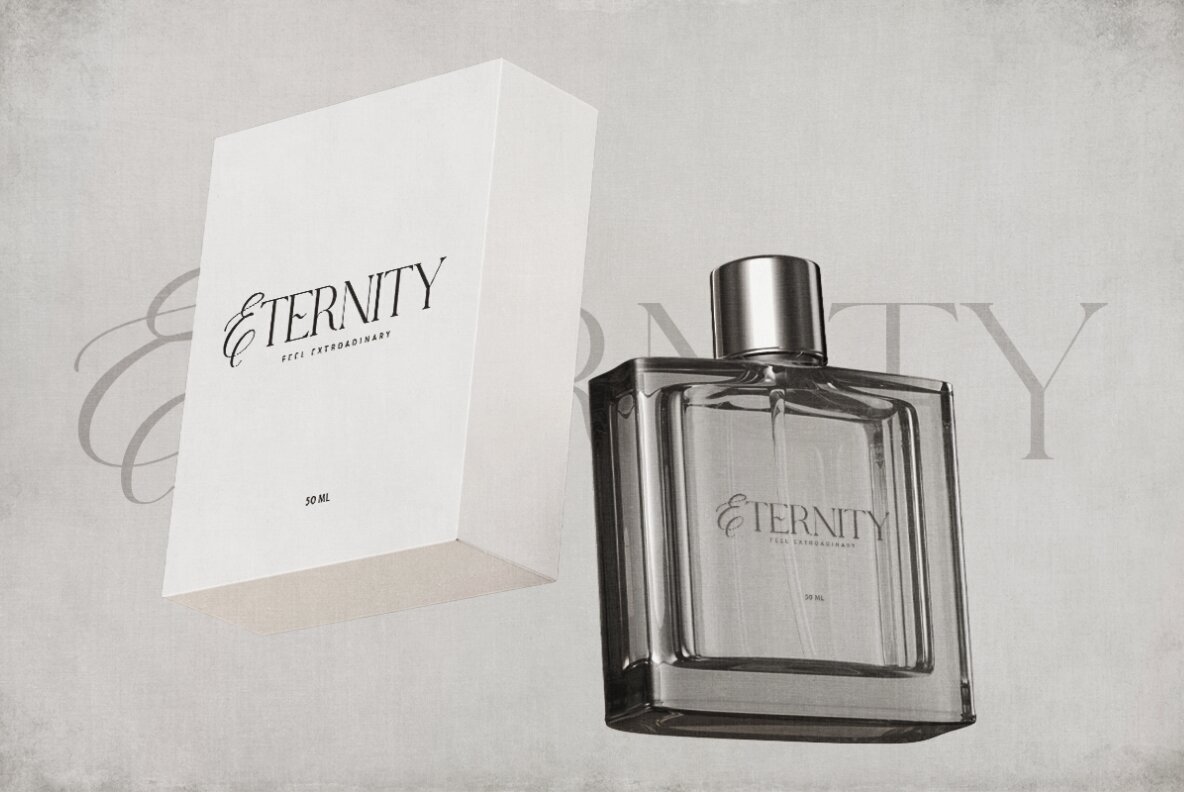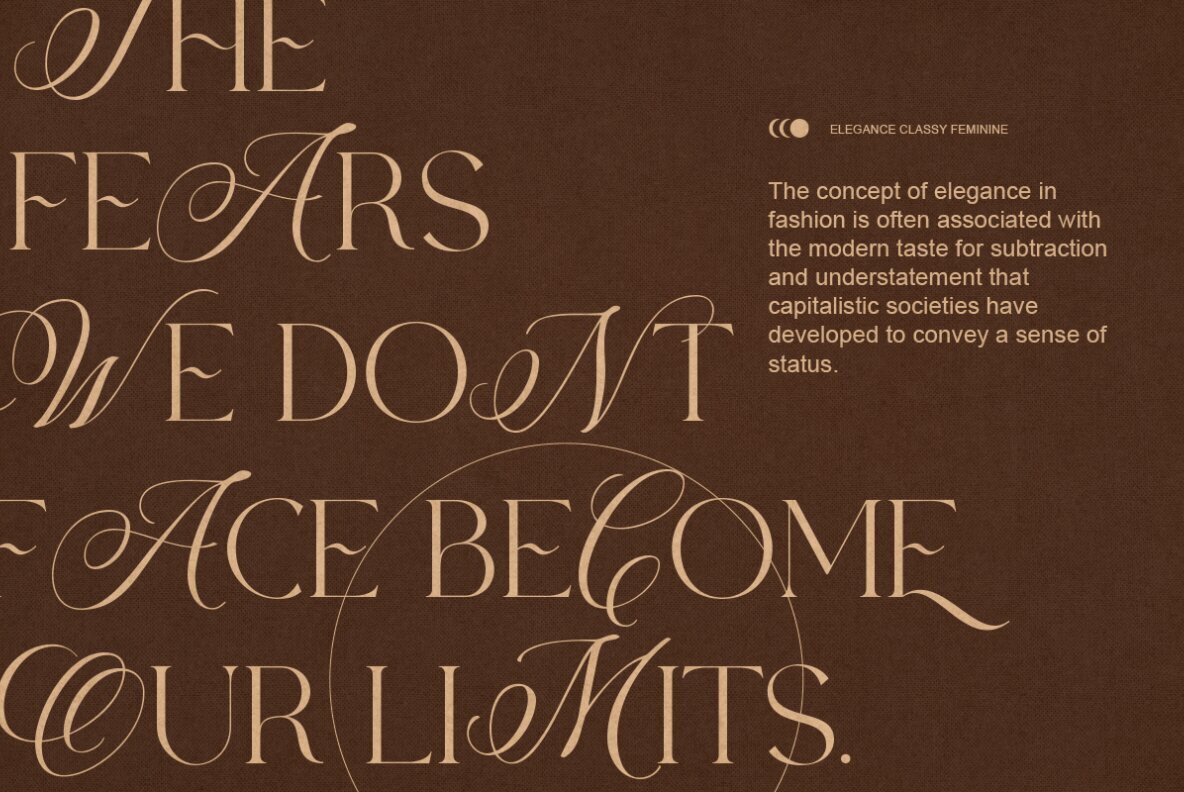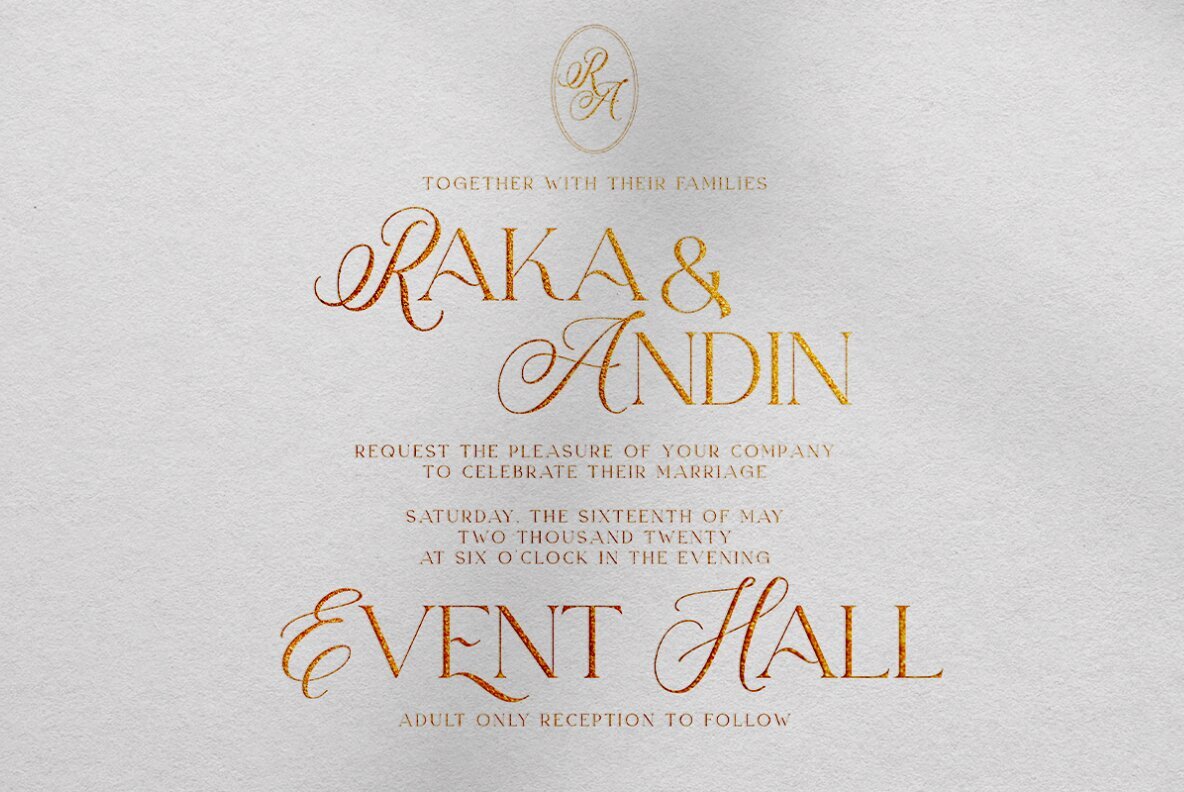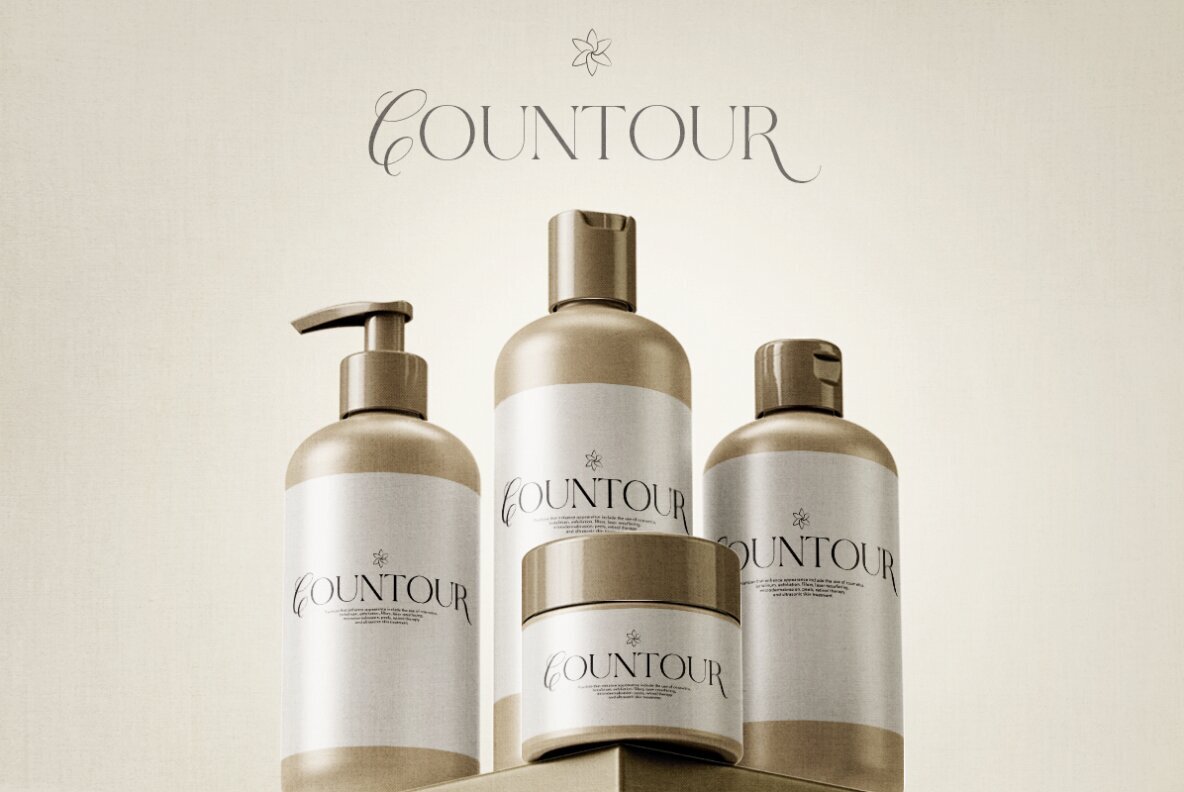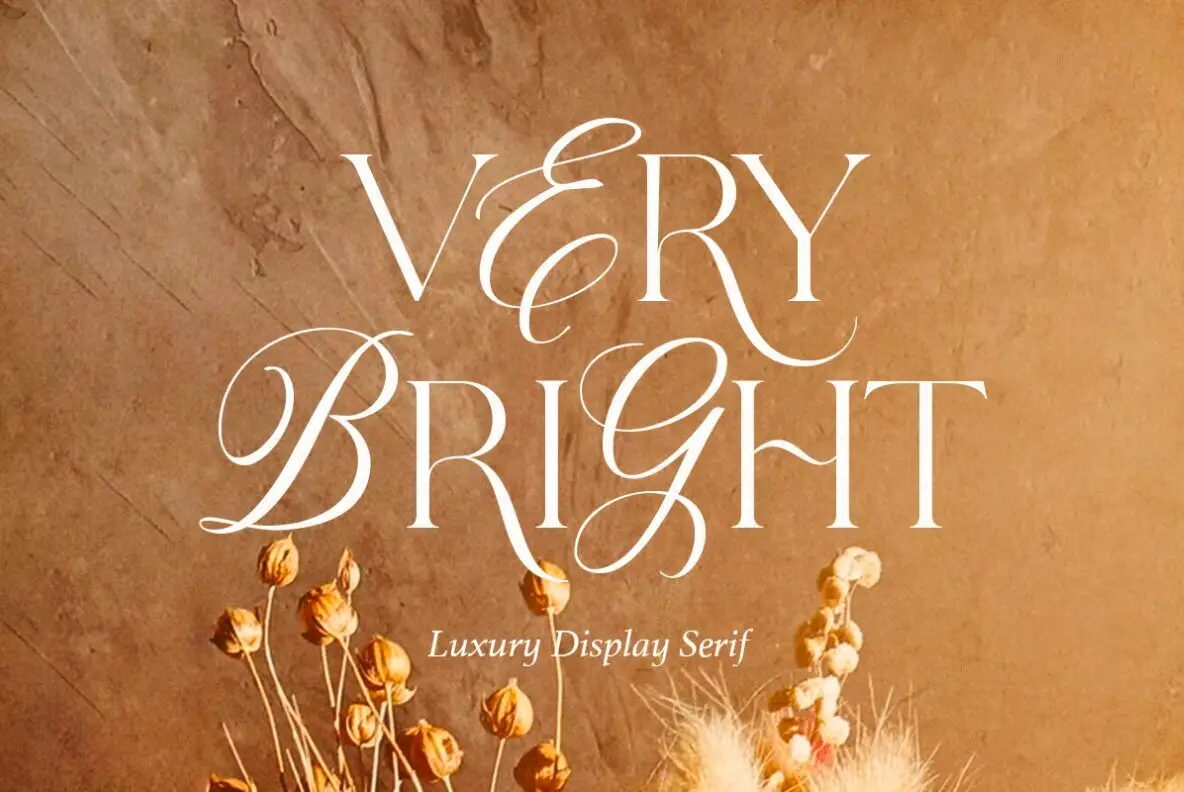
Very Bright Font
Very Bright Regular
Very Bright is a luxurious serif font with stylish and chic uppercase letters designed to captivate attention. Its unique appeal allows you to use these uppercase letters creatively, even amidst lowercase text, making it a versatile choice for diverse applications. With extensive multilingual support, Very Bright is poised to become a favorite among designers seeking both functionality and flair. Explore the endless possibilities of this exceptional serif and elevate your next project.Very Bright: Luxury Serif Font